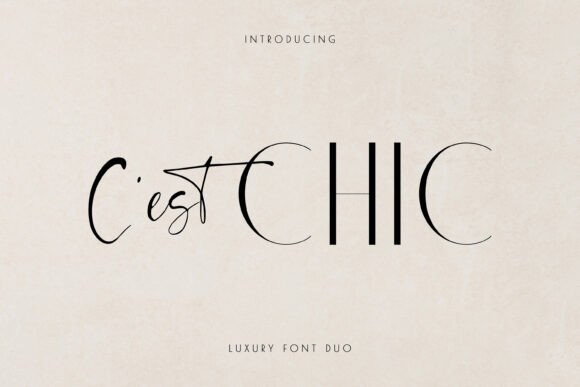
C’est Chic Font: Elevate Your Design with Elegance and Charm
In the world of typography, fonts play a crucial role in conveying the tone and personality of a design. A well-chosen font can instantly elevate your project, making it more visually appealing and engaging. If you’re looking for a font duo that exudes elegance, class, and French charm, look no further than C’est Chic Font. This stunning pair of fonts is designed to add a touch of sophistication and whimsy to your designs, making it perfect for a wide range of projects.
Introducing C’est Chic Font Duo
C’est Chic is a super stylish font duo that consists of two distinct typefaces: Chic Sans Serif and Chic Script. This versatile pair of fonts can be used together or separately, depending on your design needs. Whether you’re working on a branding project, website design, or marketing materials, C’est Chic Font is sure to make a lasting impression.
Chic Sans Serif: Elegance and Class
Chic Sans Serif is an elegant and classy typeface that embodies French charm. Its clean lines, subtle curves, and sophisticated design make it perfect for projects that require a touch of luxury and refinement. This font is ideal for headings, titles, and body text, and can be used in a variety of design contexts, from fashion and beauty to lifestyle and hospitality.
Some of the key features of Chic Sans Serif include:
- Clean and minimalist design
- Elegant and classy aesthetic
- French charm and sophistication
- Perfect for headings, titles, and body text
Chic Script: Casual and Whimsical
Chic Script is a casual hand-drawn font with ligatures that adds a unique and playful touch to your designs. Its whimsical design and flowing curves make it perfect for projects that require a more personal and creative approach. This font is ideal for use in titles, headings, and short paragraphs of text, and can be used in a variety of design contexts, from weddings and events to fashion and lifestyle.
Some of the key features of Chic Script include:
- Casual and hand-drawn design
- Whimsical and playful aesthetic
- Ligatures for added uniqueness
- Perfect for titles, headings, and short paragraphs of text
Why Choose C’est Chic Font?
So why choose C’est Chic Font for your design projects? Here are just a few reasons why this font duo stands out:
- Versatility: C’est Chic Font duo is incredibly versatile, making it suitable for a wide range of design projects, from branding and advertising to web design and social media.
- Elegance and Class: Chic Sans Serif and Chic Script both exude elegance and class, making them perfect for projects that require a touch of sophistication and refinement.
- Unique and Playful: Chic Script’s whimsical design and ligatures add a unique and playful touch to your designs, making them stand out from the crowd.
- French Charm: Both fonts are infused with French charm, making them perfect for projects that require a touch of continental flair.
Using C’est Chic Font in Your Designs
Using C’est Chic Font in your designs is easy and straightforward. Here are a few tips to get you started:
- Pair Chic Sans Serif and Chic Script: Use both fonts together to create a stunning contrast between elegance and whimsy.
- Experiment with Font Sizes: Play around with different font sizes to create visual interest and hierarchy in your designs.
- Add Ligatures: Use Chic Script’s ligatures to add a unique and creative touch to your designs.
- Mix and Match: Don’t be afraid to mix and match C’est Chic Font with other fonts to create a unique and personalized look.
In conclusion, C’est Chic Font is a super stylish font duo that is sure to elevate your designs with elegance, class, and French charm. With its versatile and sophisticated design, Chic Sans Serif and Chic Script are perfect for a wide range of projects, from branding and advertising to web design and social media. Whether you’re looking to add a touch of luxury and refinement or whimsy and playfulness, C’est Chic Font is the perfect choice.